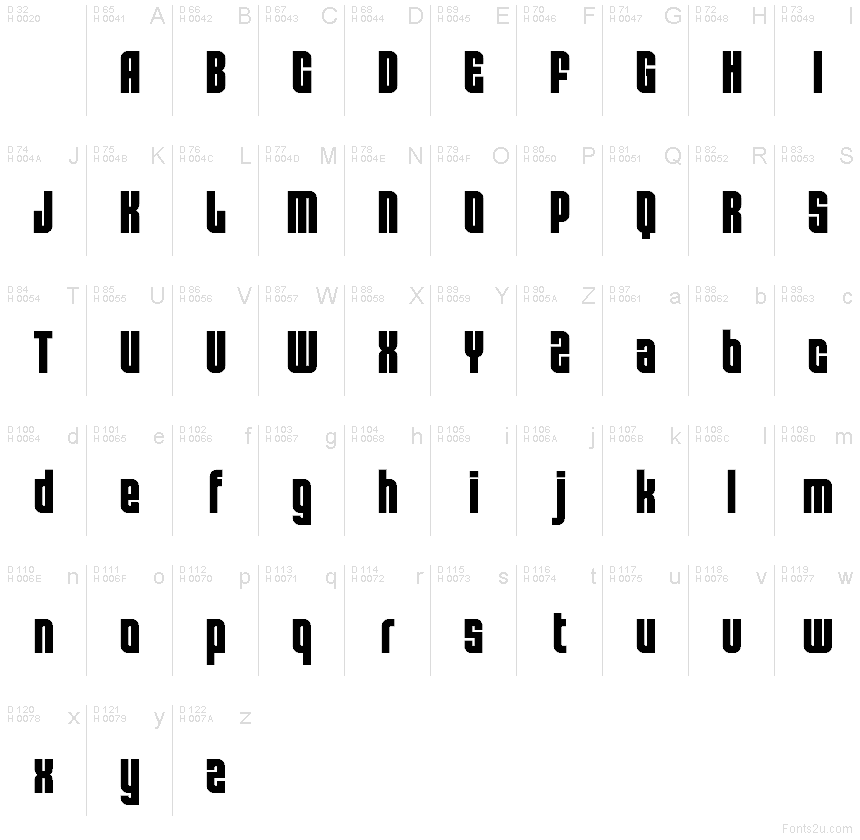
CS Santino Regular Demo
CS Santino font by Craft Supply Co. is a free bold condensed display font that hits hard without hogging space. Engineered for tight layouts, its tall proportions and chunky, monoline strokes keep headlines loud while lines stay short. Squared counters and clipped terminals create a clean, modular rhythm that feels crisp and engineered—like metal panels snapping into place—so long words stay legible and punchy.
Using CS Santino, you can squeeze impact into posters, app headers, thumbnails, esports graphics, event badges, and bold packaging. The tight spacing and blunt edges deliver instant authority, while the condensed build maximizes character count on narrow banners. This free font pairs naturally with a light, open grotesk for body copy—try a touch of extra tracking to let the heavy forms breathe.